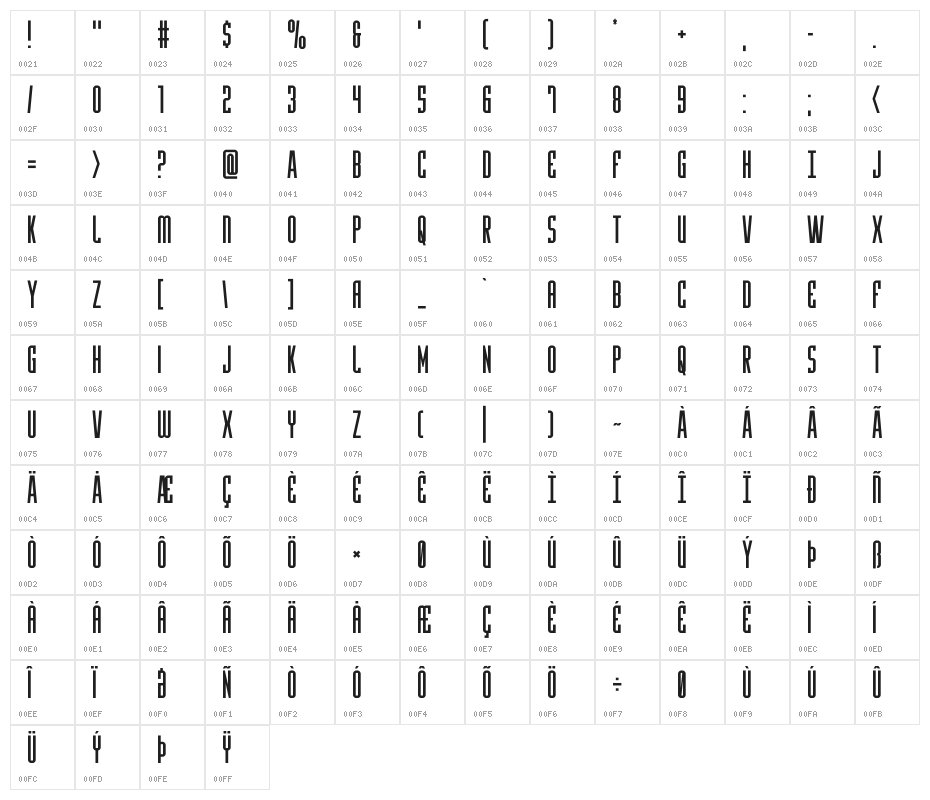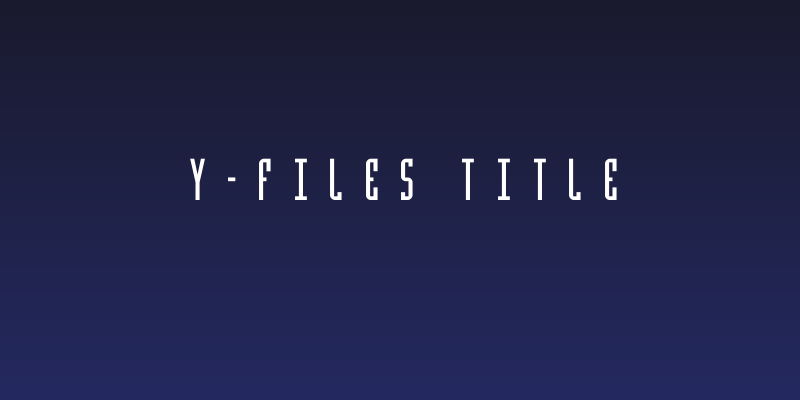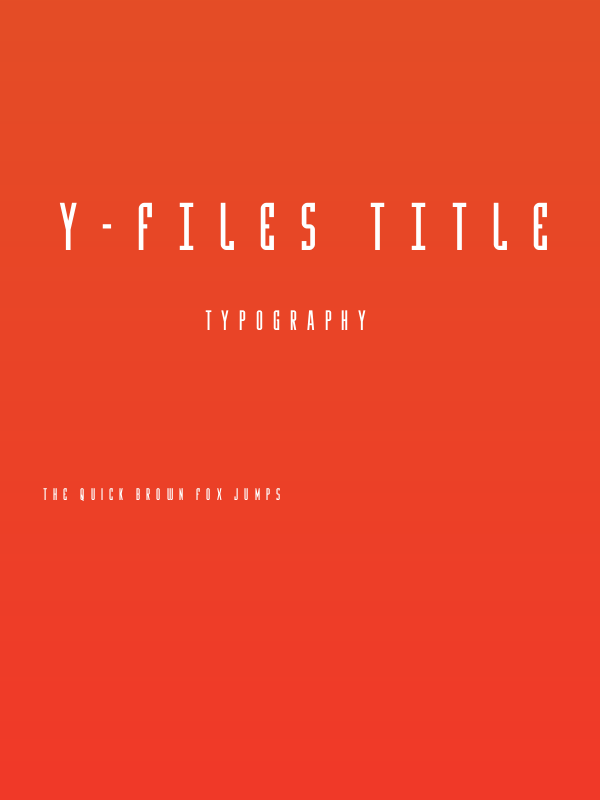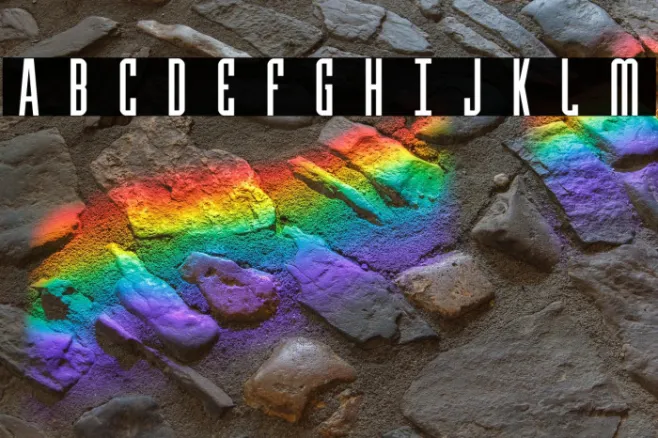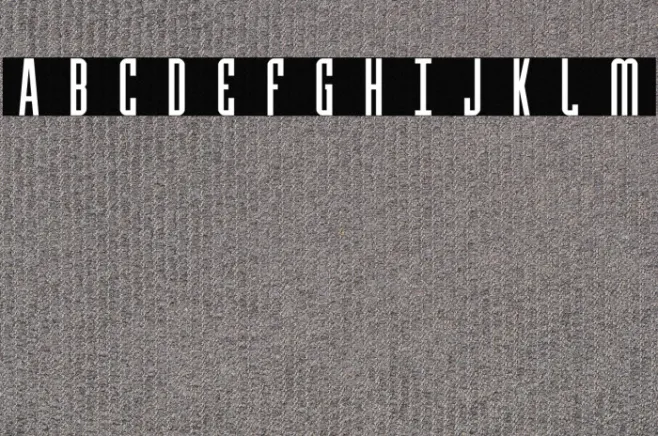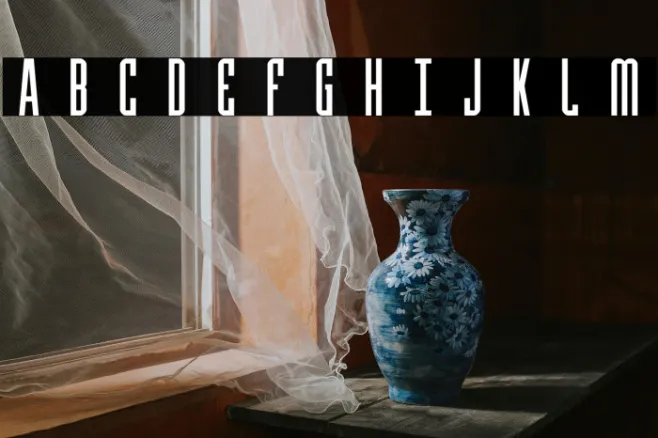
Y-Files Title Font
Y-Files Title Description
This font features a modern, geometric design with tall, narrow characters that convey a sense of sleekness and sophistication. The uppercase letters are uniform in height, with sharp angles and clean lines that create a futuristic aesthetic. The lowercase letters maintain the same narrow structure, ensuring consistency across the typeface. Numbers are similarly styled, with a focus on verticality and minimalistic design. Special characters are included, matching the overall style with precise, angular forms. The font's uniformity and clarity make it ideal for projects that require a contemporary and professional look.
| Use Case | Headlines, Logos, Digital interfaces |
| Proposed Projects | Ideal for technology branding, modern advertising, futuristic posters, and digital interfaces. |